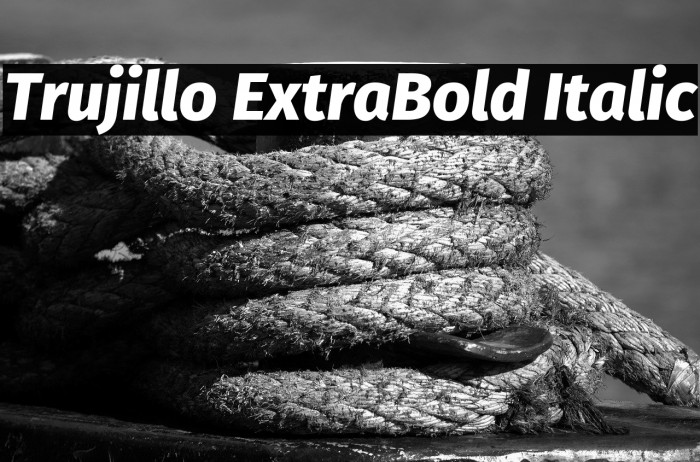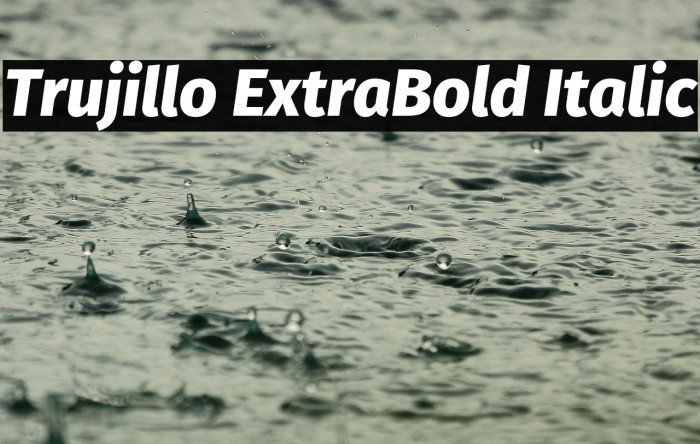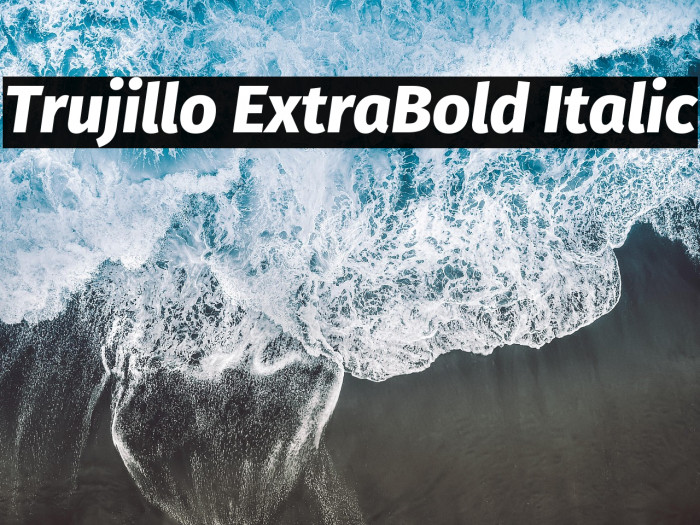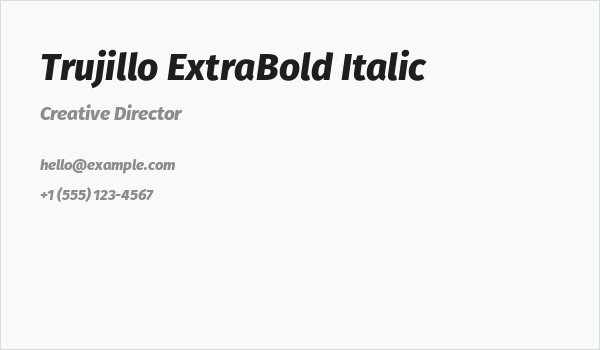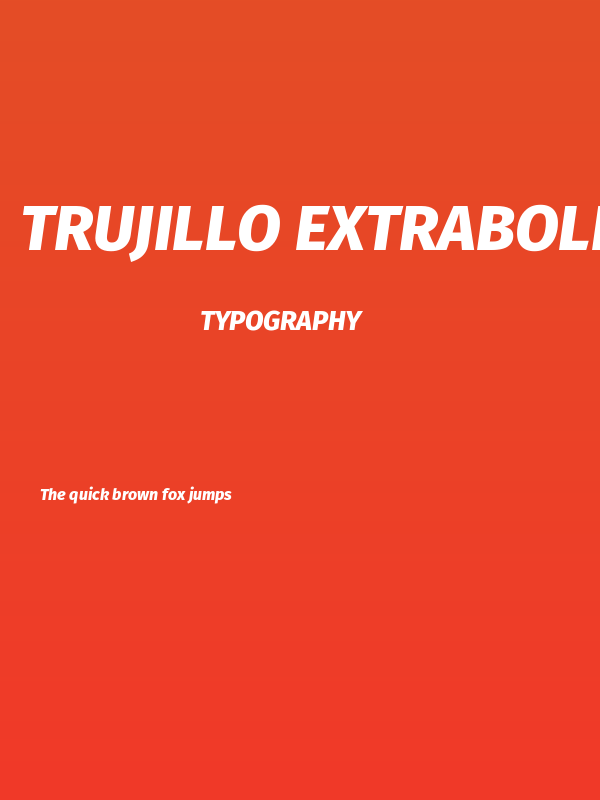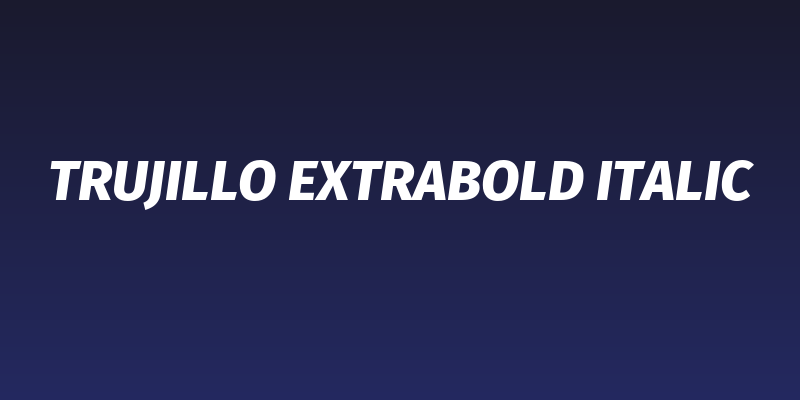
Trujillo ExtraBold Italic Font
Trujillo ExtraBold Italic Description
This font features a bold and dynamic style with a pronounced italic slant, giving it a sense of movement and energy. The characters are robust and impactful, with thick strokes that convey strength and confidence. The uppercase letters are slightly condensed, while the lowercase letters maintain a consistent width, ensuring readability. The numerals are clear and bold, matching the overall weight of the alphabet. Special characters are well-defined, adding versatility to the font. The design is modern and assertive, making it suitable for attention-grabbing headlines and impactful branding.